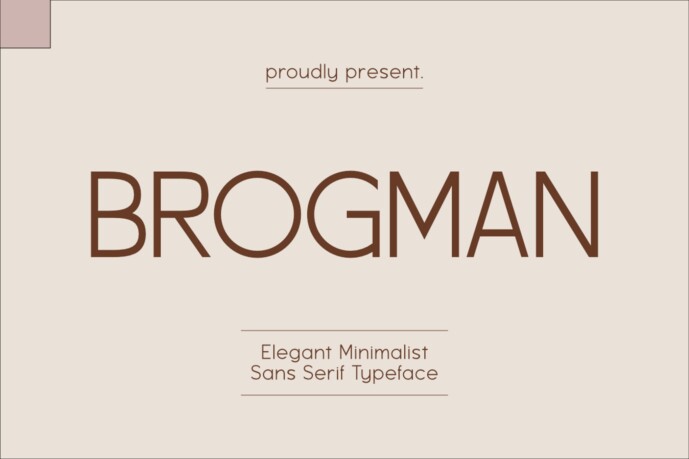
Brogman is an elegant minimalist sans serif display font, inspired by simple and modern typography. Designed for sophisticated and stylish branding, it’s the perfect choice for logos, advertisements, photography watermarks, stationery, branding projects, displays and magazines, invitations, corporate identity, product packaging, labels, and business projects. With its clean and refined letterforms, Brogman brings a classy and chic aesthetic to any design.